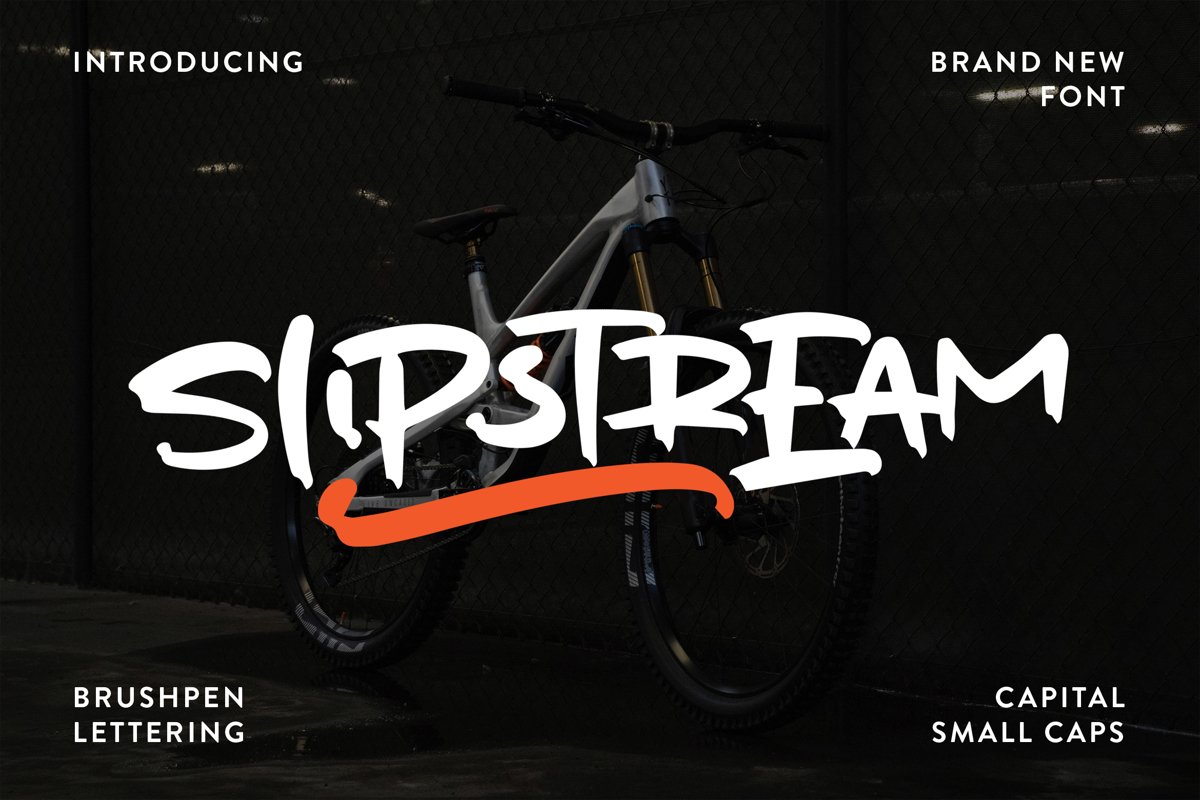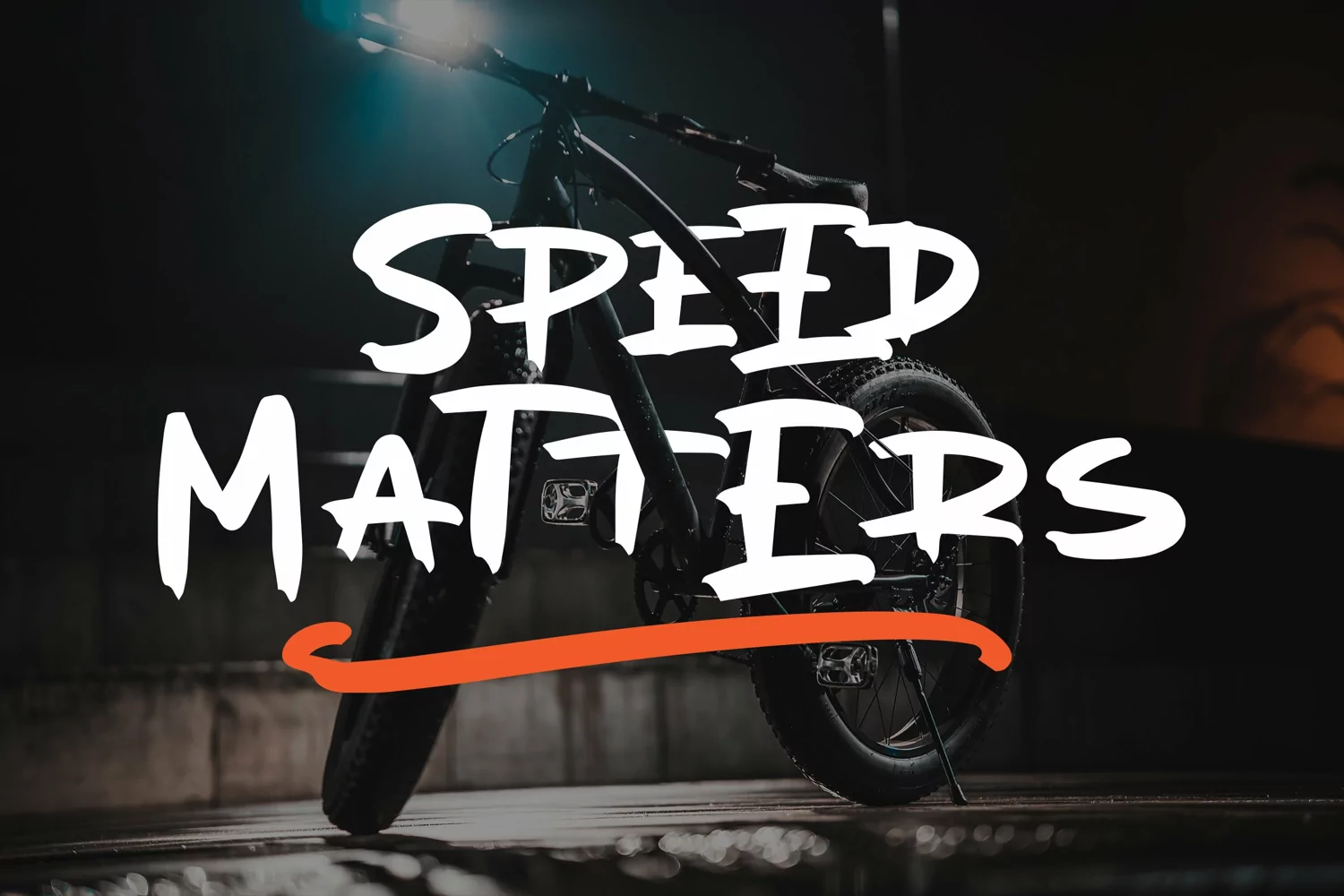
Slipstream - Brushpen Lettering Font that contain lowercase, uppercase, symbol, and also support multi language. There’s a lot ligatures in this font. This Font also comes with ligatures, alternates and many more. this font suitable for fashion, branding, catalog and other design what you want.
Slipstream